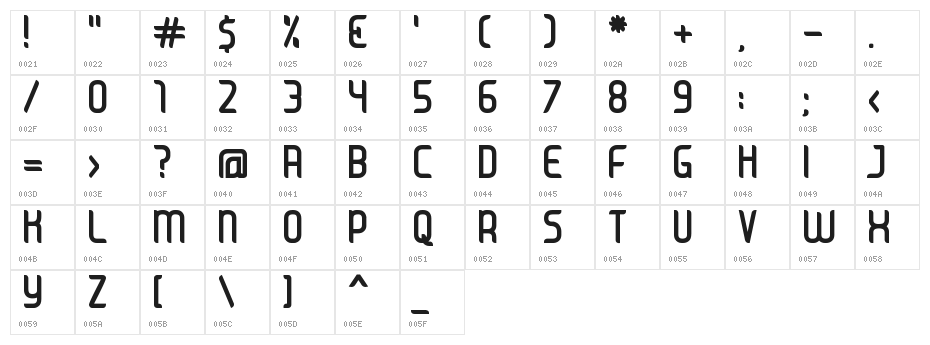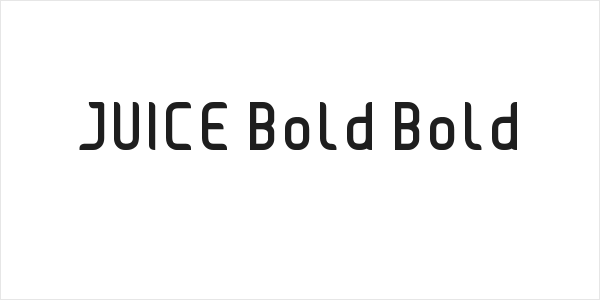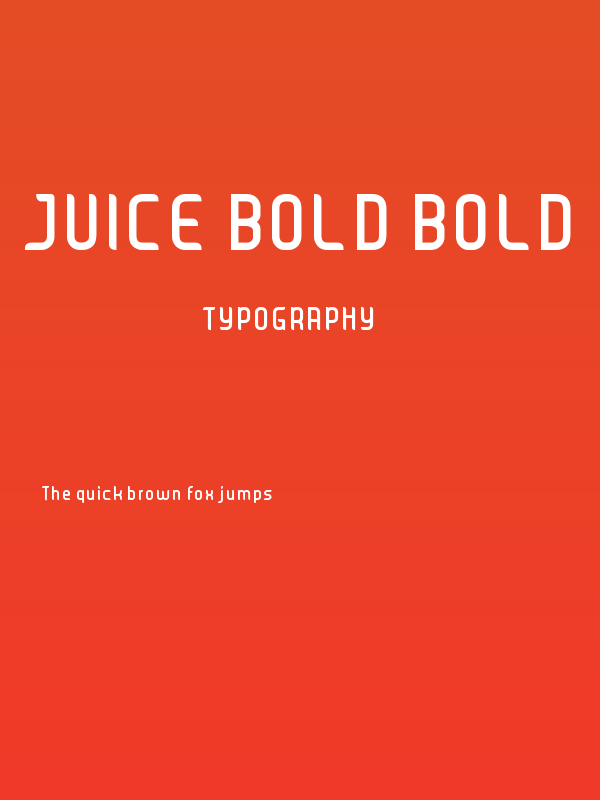
JUICE Bold Bold Font
JUICE Bold Bold Description
This font features a bold and rounded style with a modern and clean aesthetic. The characters are uniformly thick, providing a consistent and strong appearance. The rounded edges soften the overall look, making it approachable and friendly. The uppercase and lowercase letters maintain a uniform width, contributing to a balanced and harmonious design. The numerals are clear and easy to read, matching the style of the alphabet. Special characters are well-integrated, maintaining the font's cohesive look. This font is versatile, suitable for various design needs where a bold and modern touch is desired.
| Proposed Projects | Ideal for branding, headlines, posters, and digital media where a strong and friendly impression is needed. |